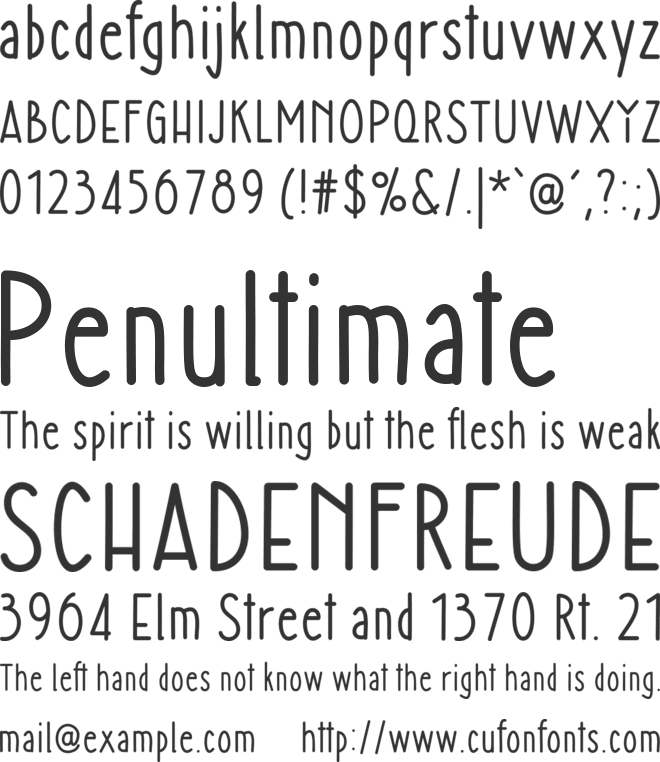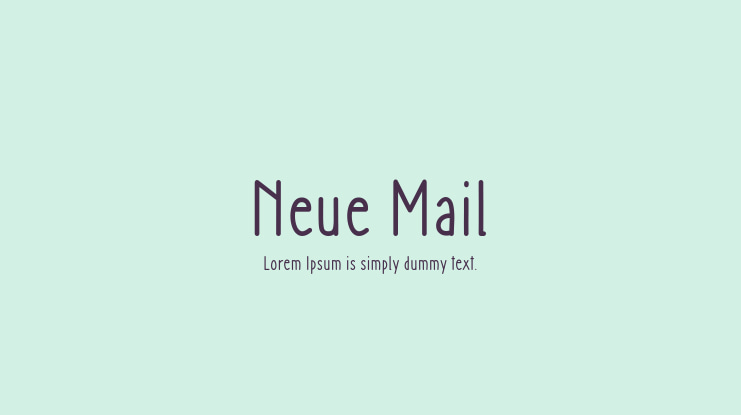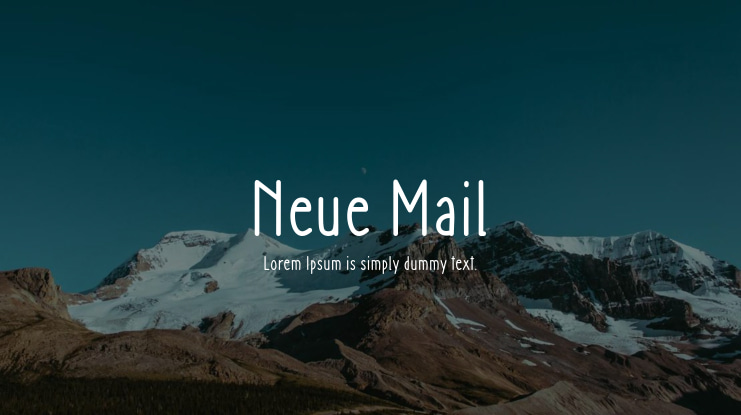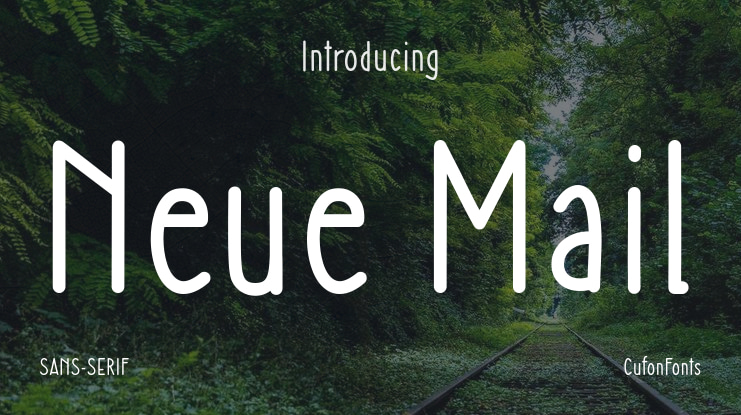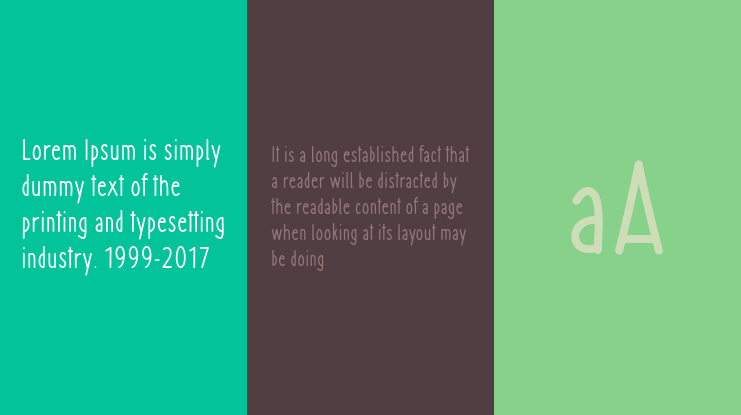
Neue Mail Font
„Neue Mail“ – where retro charm meets modern precision. Handcrafted with a steampunk flair, our lowercase transports you to an era of personal touch, while the uppercase maintains a crisp, clean linearity. Perfect for evoking nostalgia with a contemporary edge. Embrace the fusion where every character tells a story.